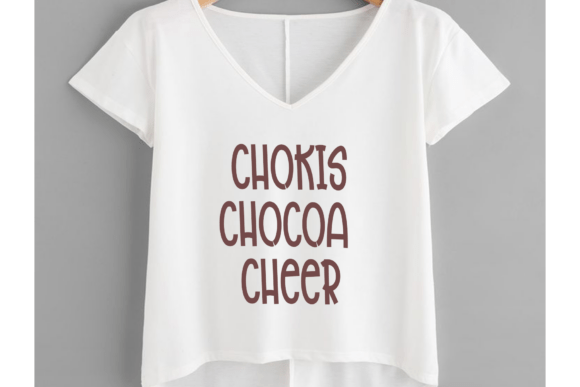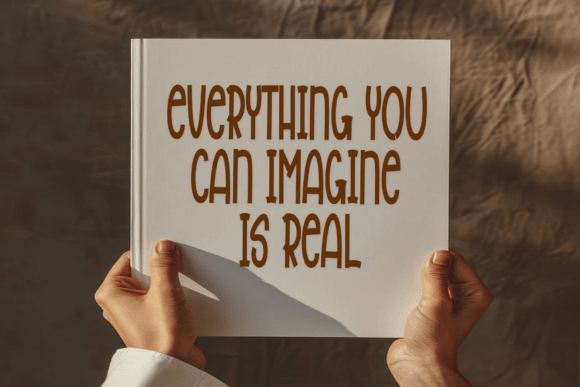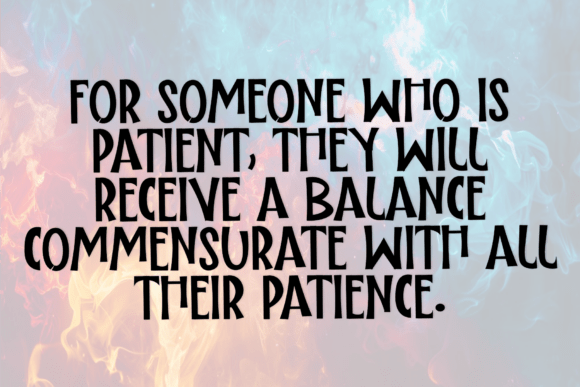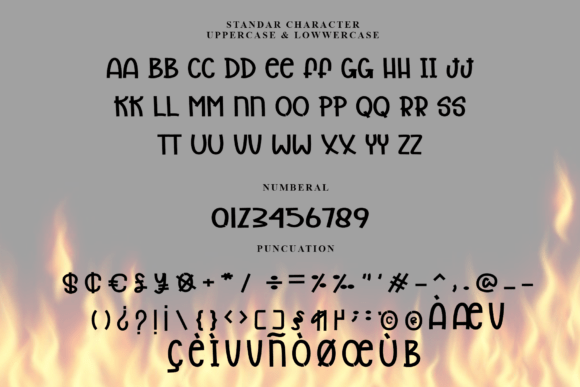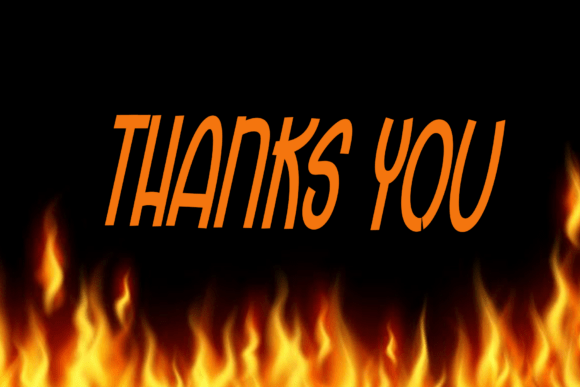
The Perfect Blend of Handwritten Charm and Modern Appeal
There’s something magical about seeing a well-designed quote or invitation that makes you feel like you’re holding a piece of art in your hands. For designers, finding the right font to convey that personal touch can be a challenge. But what if you could capture the warmth and personality of authentic handwriting with a modern, approachable feel? Enter the Hellfire Font, a casual handwritten display font designed to add a friendly touch to any design.
With its smooth strokes, natural curves, and easy-flowing letterforms, the Hellfire Font is ideal for quotes, invitations, branding, and social media posts. Its effortless style and versatile character make it a valuable asset for designers looking to add a personal and charming touch to their work.
Hellfire Font Key Features
- Font Family: Hellfire Font is a sans-serif font designed specifically for digital use.
- Unique Characteristics: Hellfire Font features a unique blend of modern and industrial design elements, with sharp lines, geometric shapes, and a bold aesthetic.
Hellfire Font Review
I recently had the chance to work with the Hellfire Font, and I must say it’s been an interesting experience. Here’s what I think:
- ✨ The font’s bold and fiery personality really shines through, perfect for designs that need a bit of edge.
- ✨ The Hellfire Font is highly customizable, allowing you to tweak the weight, spacing, and even the font’s behavior to fit your project’s needs.
- ✨ I appreciate the attention to detail that’s gone into crafting this font – every aspect, from the bold strokes to the subtle texture, feels well-thought-out.
- ⚠️ The Hellfire Font might be a bit too aggressive for more subtle or minimalist designs. It’s best suited for projects that want to make a statement.
- ⚠️ Some of the letterforms feel a bit cramped or uneven, which can be distracting in certain contexts.
I’d say the Hellfire Font is a solid choice for designers who want to add some excitement and energy to their work. While it may not be perfect for every project, it’s definitely a great option when you need to make a bold statement. With a bit of careful consideration, the Hellfire Font can be a real game-changer in the right situations.
For optimal results, use the Hellfire font in bold or italic styles to emphasize key points. Experiment with different font sizes and combinations to create visually striking designs.
The Hellfire font is ideal for creating bold, attention-grabbing headlines, titles, and logos. It’s particularly well-suited for use in posters, flyers, and other marketing materials where a striking visual impact is desired.